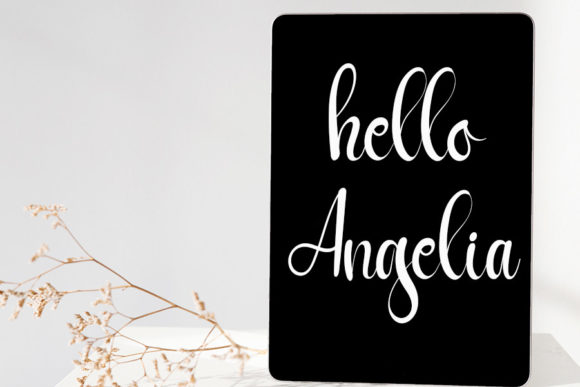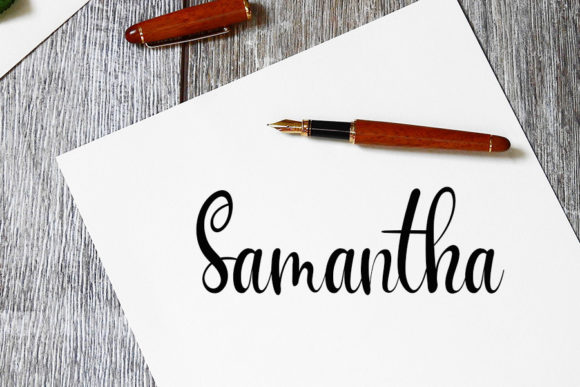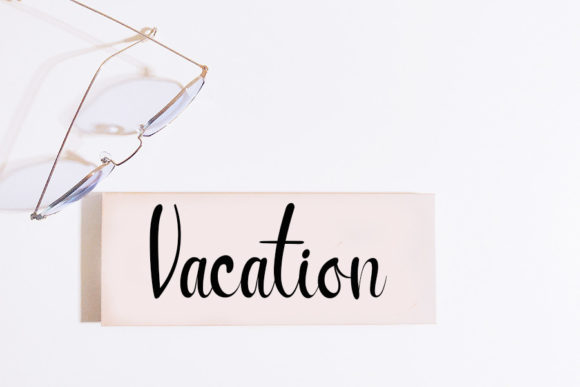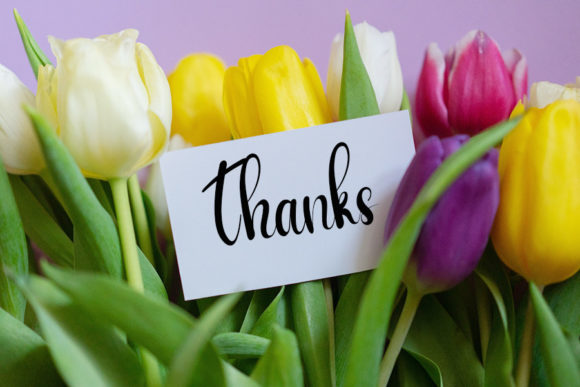
The Enchanting Angela Font: A Designer’s Dream Come True
I’ll never forget the time I was working on a wedding invitation project, and my client asked for a font that was “romantic, elegant, and whimsical.” I scoured the internet, tried countless fonts, but nothing seemed quite right. That was until I stumbled upon Angela Font. ✨ It was love at first sight! The flowing, delicate characters seemed to dance on the page, and I knew I had found the perfect fit.
An Honest Review of Angela Font
• ✨ Elegant and refined, perfect for romantic projects
• 💫 Beautifully crafted with attention to detail
• 🎨 Versatile and works well for a variety of design applications
While Angela Font is a stunning addition to any design project, there are a few things to keep in mind: 🤔
• ⚠️ Limited availability of bold or heavy weights, which may limit its use for certain applications
• ⚠️ Some characters may not work well in all languages or scripts
The Story Behind Angela Font
Angela Font was designed with the intention of creating a beautiful, elegant script font that would evoke feelings of romance and sophistication. The designer, Alexandra, drew inspiration from classic calligraphy and handwriting to create a font that is both refined and playful. With its delicate lines and flowing curves, Angela Font is perfect for designers, crafters, and creative hobbyists looking to add a touch of elegance to their projects.
Q: What is Angela Font?
Angela Font is a beautiful, elegant handwritten font that embodies charm and sophistication in every character.
Q: Can I use Angela Font for my wedding invitations?
Absolutely! Angela Font is perfect for wedding invitations, and its elegant, refined design is sure to impress your guests.